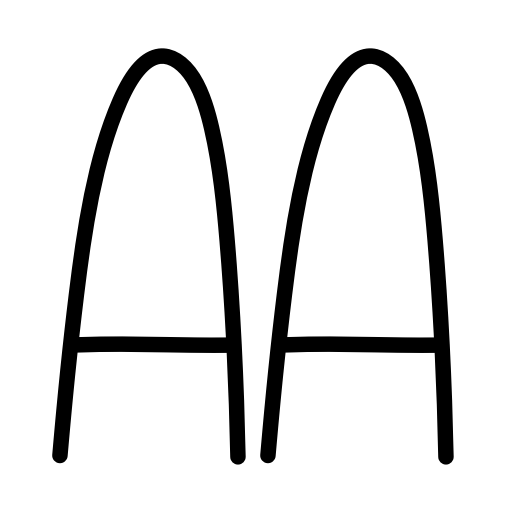
Baby Pinky is a playful, narrow handwritten sans serif font characterized by its tall, slender letterforms and light weight. Its quirky, uneven lines give it a casual and friendly personality, making it perfect for children’s products, creative projects, and informal branding where a whimsical and approachable feel is desired. This font works well in headlines, logos, and packaging that seek a youthful and charming touch.
Baby Pinky Font
About Baby Pinky Font